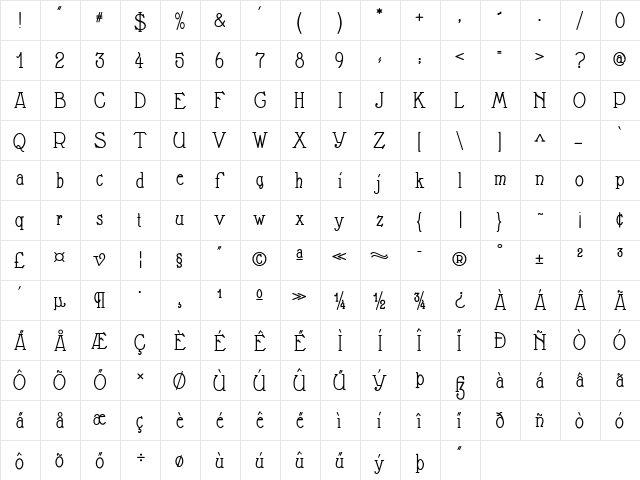
Nathan Regular Font Preview
Nathan Regular
Nathan Regular Font Details
| Foundry | Peter Wiegel |
| Designer | Peter Wiegel |
Design Context for Nathan Typeface
Nathan offers clean, dependable letterforms without strong stylistic allegiance, making it a practical choice for designers who need flexibility.